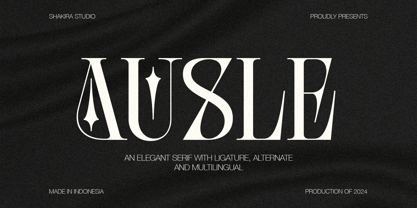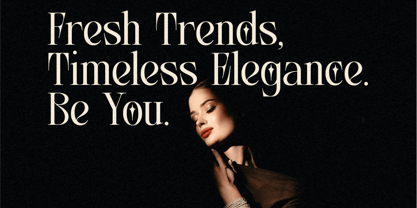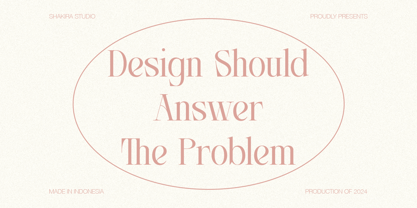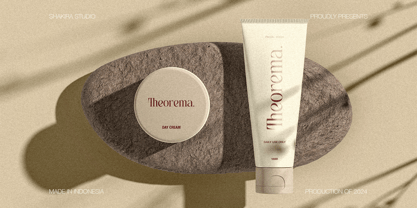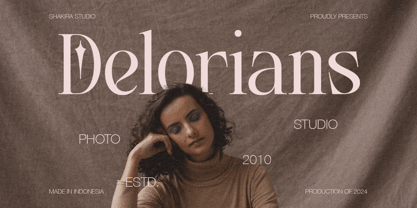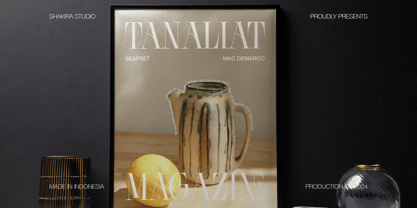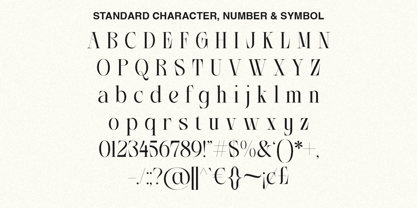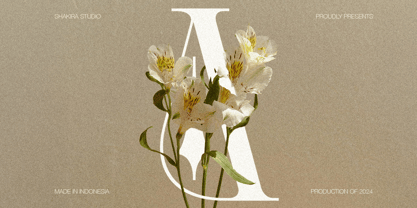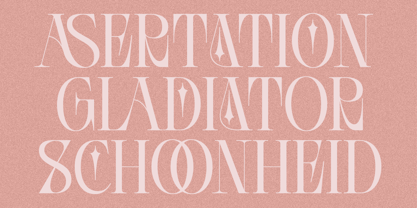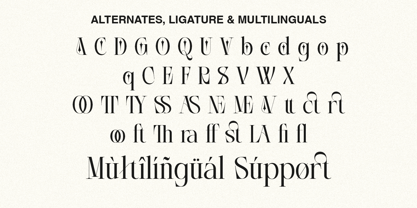
Ausle
by Shakira Studio
The Ausle Font Family was designed by Idhham Cholid Rikzano Yahya and published by Shakira Studio. Ausle contains 2 styles and family package options. More about this family
Ausle – Elegant Serif Font Ausle is a sophisticated serif font with a luxurious and modern character. Designed to exude elegance and style, this font comes with stylish alternates and ligatures, allowing you to effortlessly create unique and personalized designs.
Perfect for a wide range of creative projects, Ausle shines in poster designs, magazines, and print materials. Its beauty and versatility make it the ideal choice for showcasing a premium aesthetic in every piece.
Make a lasting impression with Ausle.
• Regular & Italic
• All Multilingual symbol
• Opentype features ( ligature, alternate )
Multilingual character supports : (Afrikaans, Albanian, Catalan, Croatian, Czech, Danish, Dutch, English, Estonian, Finnish, French, German, Hungarian, Icelandic, Italian, Lithuanian, Maltese, Norwegian, Polish, Portuguese, Slovenian, Spanish, Swedish, Turkish, Zulu)
Designers: Idhham Cholid Rikzano Yahya
Foundry: Shakira Studio